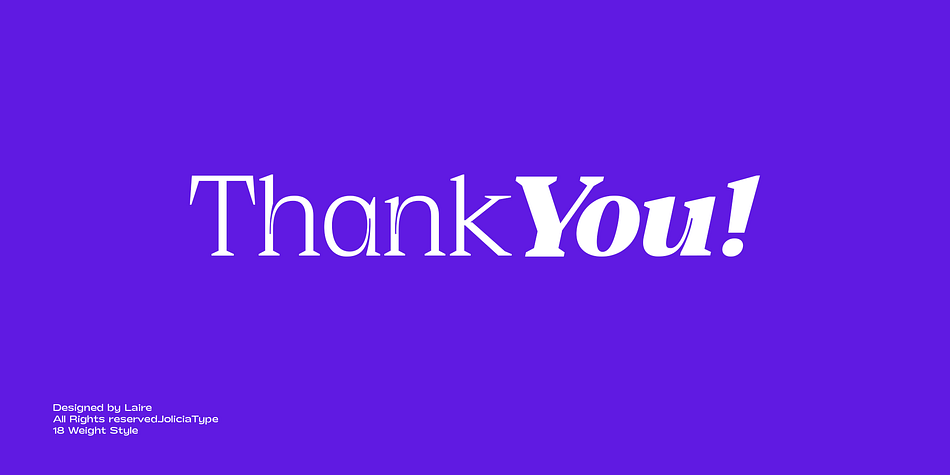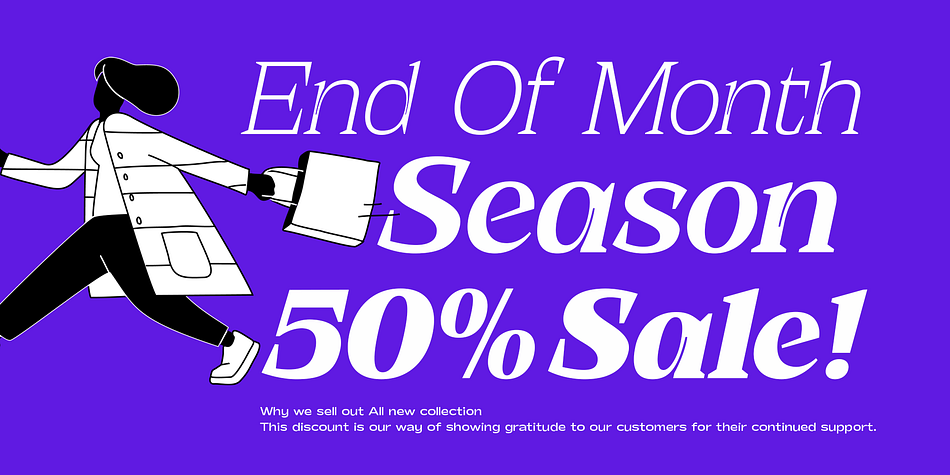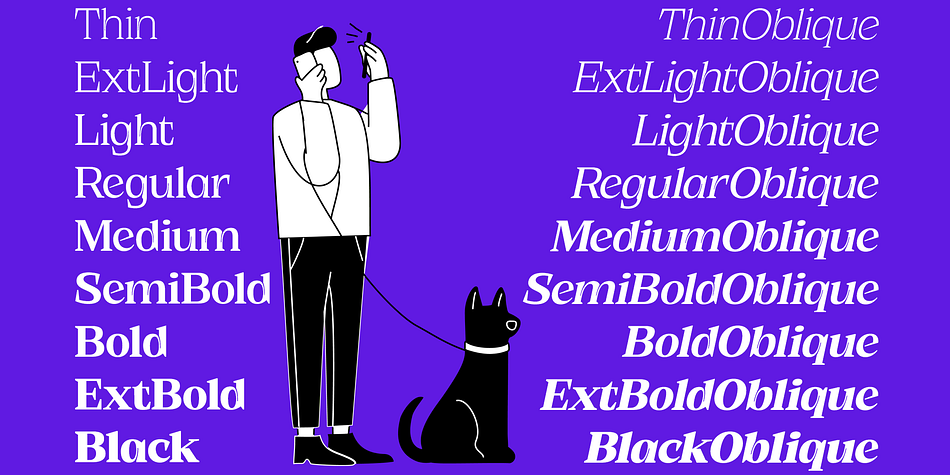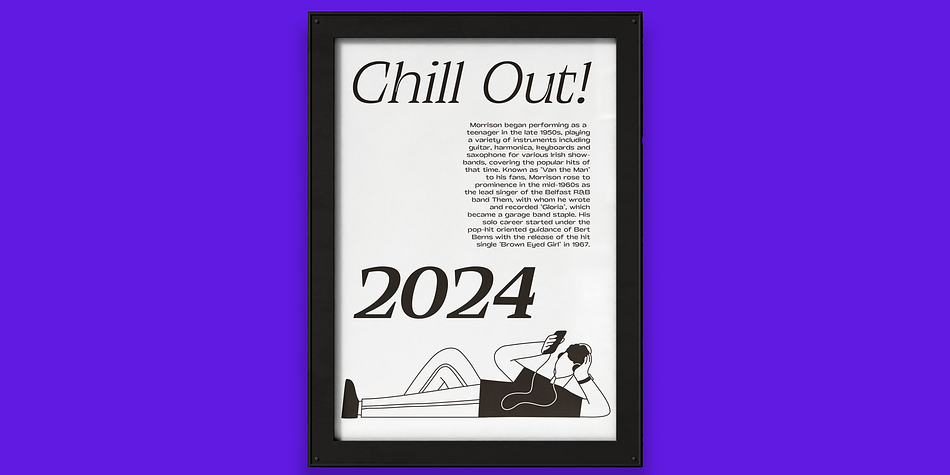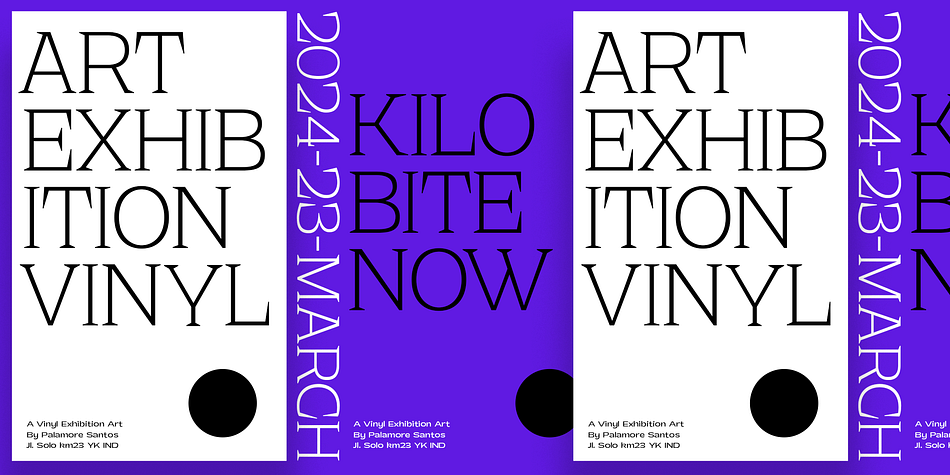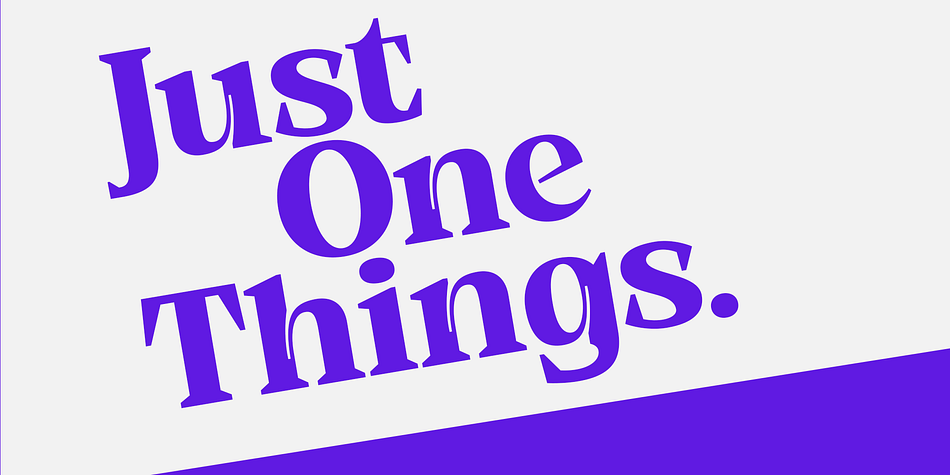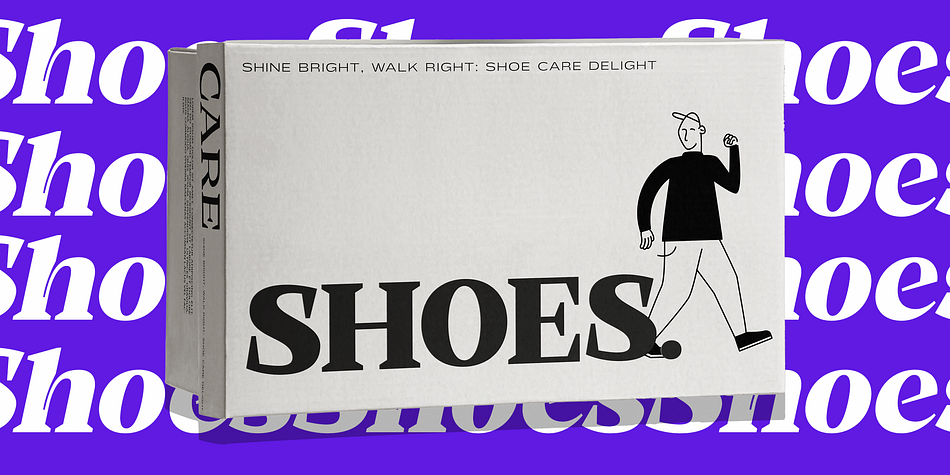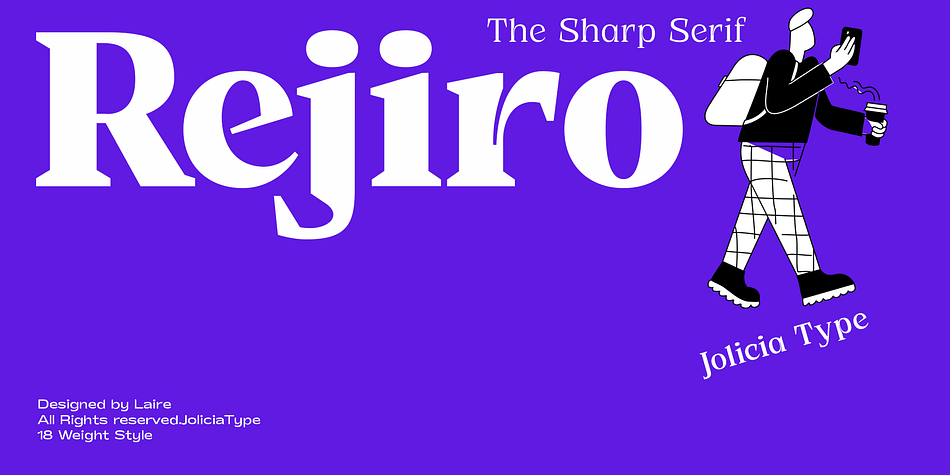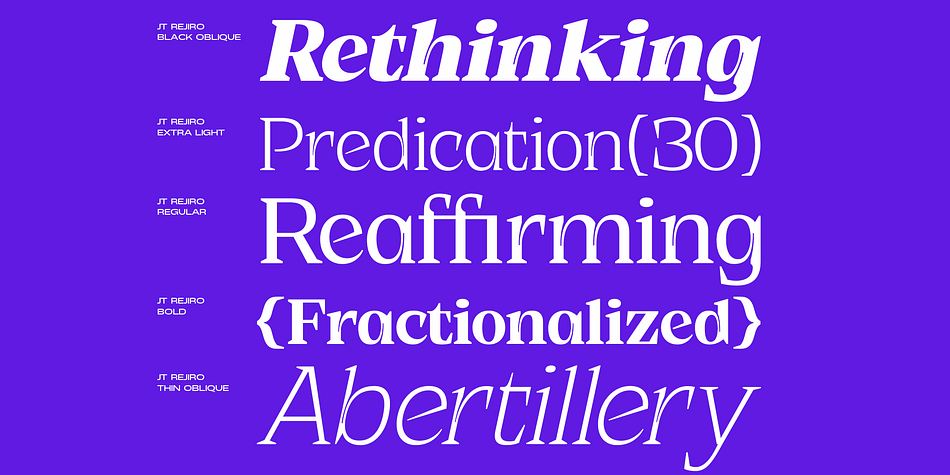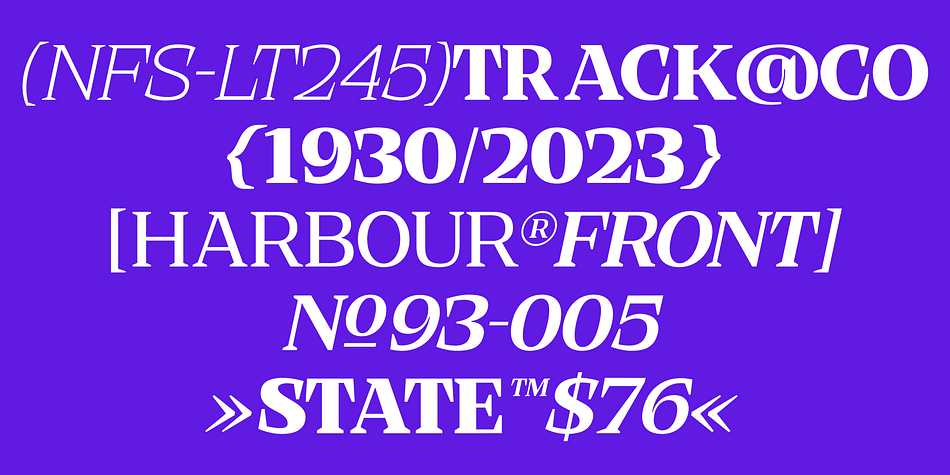
Rejiro
Designed by Laire Pawenang, Rejiro is a serif font family. This typeface has eighteen styles and was published by Jolicia Type.
JT Rejiro is a sharp and pointed serif font with a strong style and a special impression crafted by Laire Banyu consisting of 18 weight styles starting from Thin, Extra Light, Light, Regular, Medium, SemiBold, Bold, Extra Bold, Black. All have the Oblique type so this was created to give a unified strong and sharp impression. Anatomy of letters on the pointed end
At thick stem junctions we provide extreme inktrap so that it has a different character from the others. It has a total of 348 glyphs which can cover 92 languages